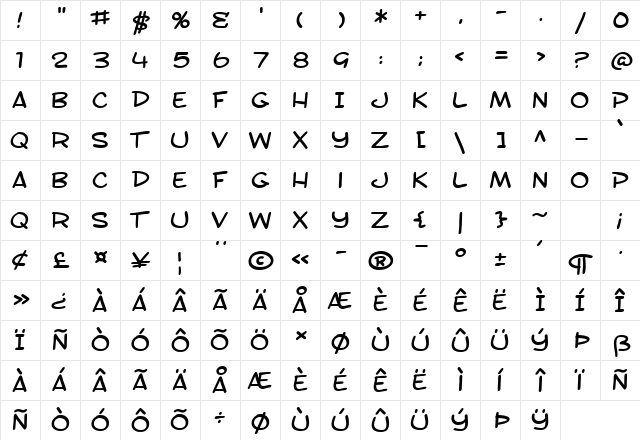
SF Toontime Extended Regular Free Font
SF Toontime Extended Regular
Designer: ShyFonts Type Foundry
Design Context for SF Toontime Extended
SF Toontime Extended is a composed and adaptable typeface that performs quietly and consistently across a wide range of design contexts.